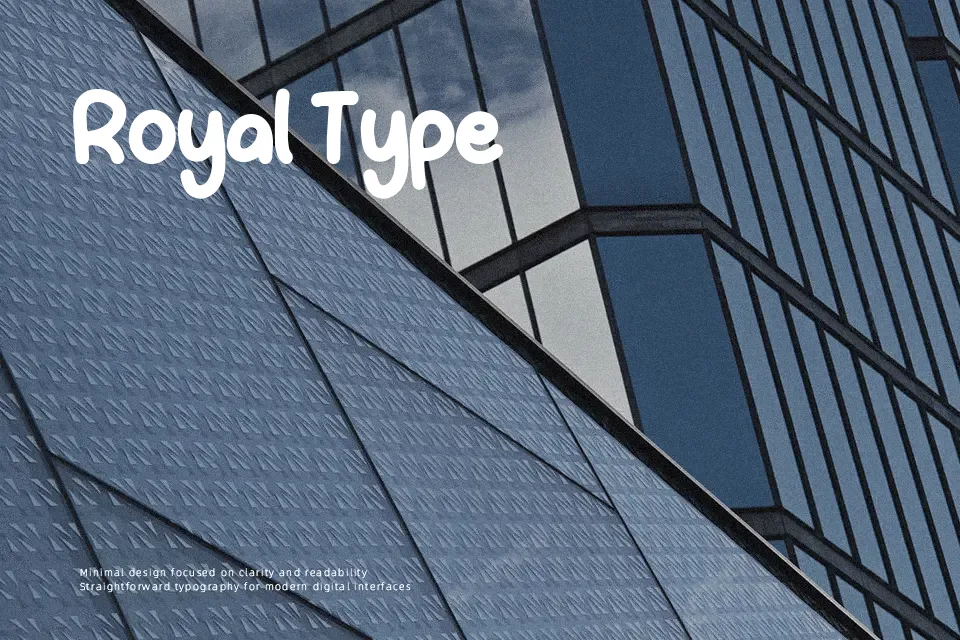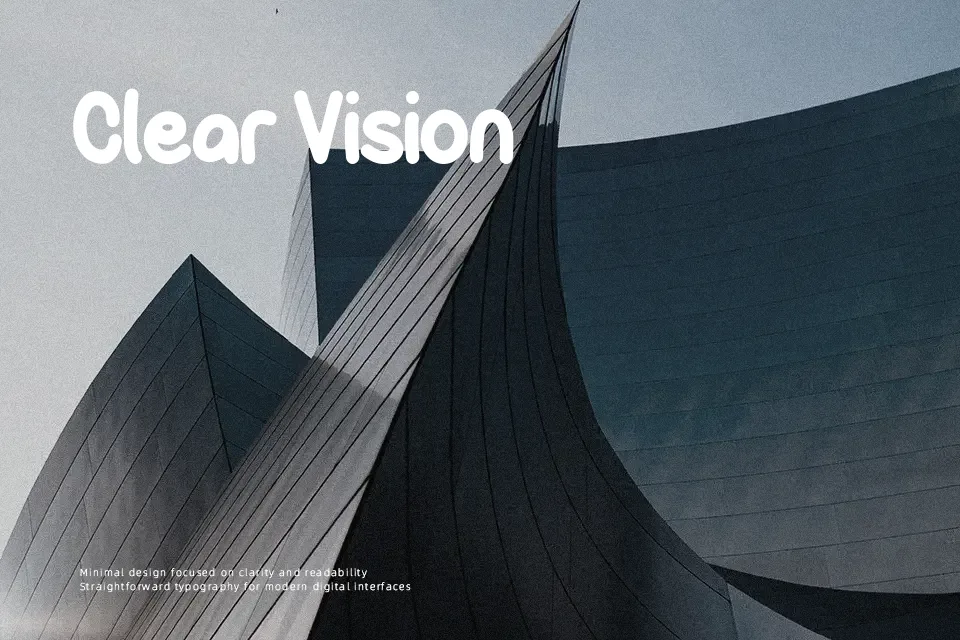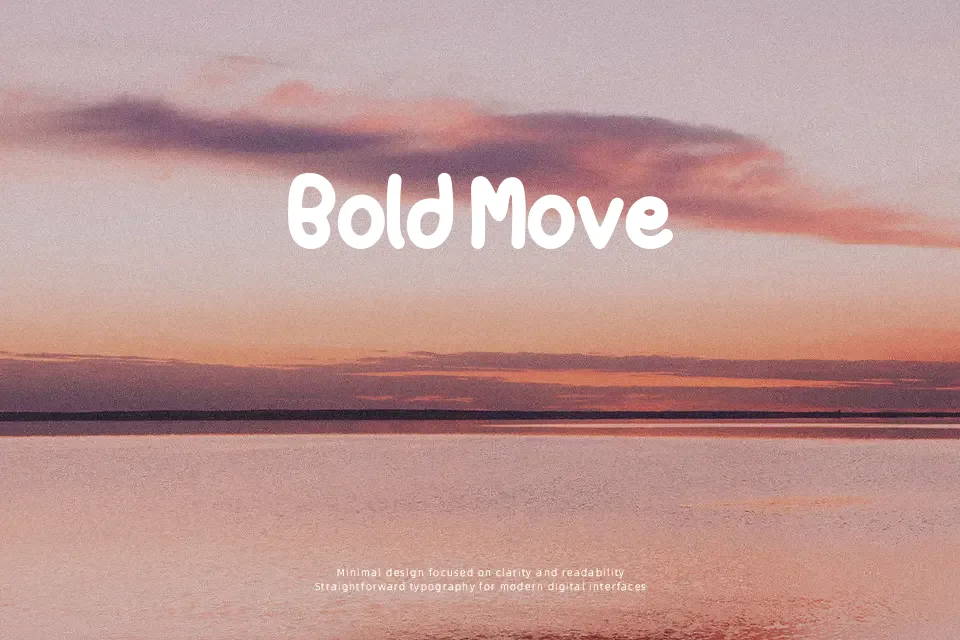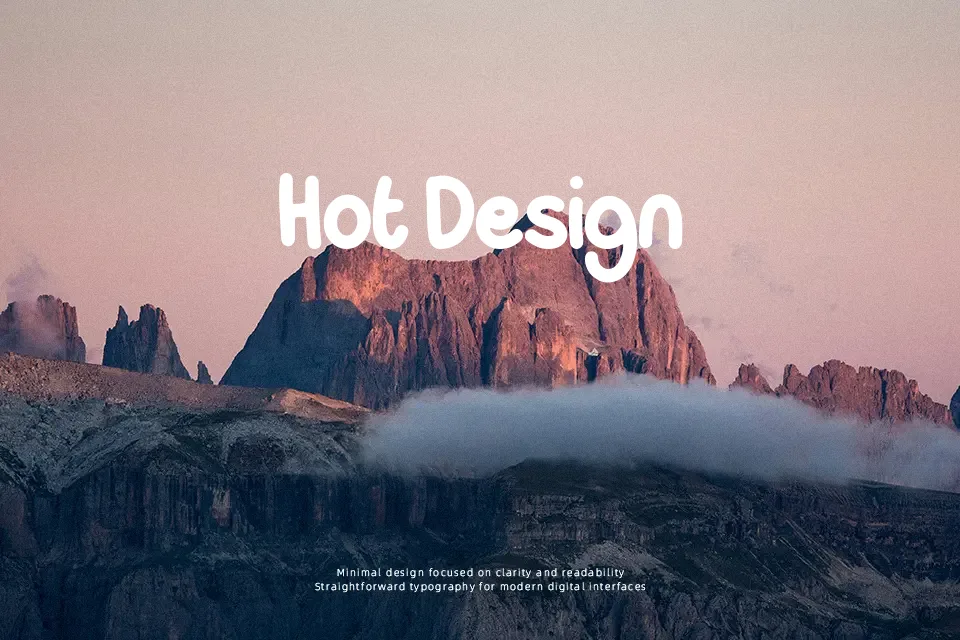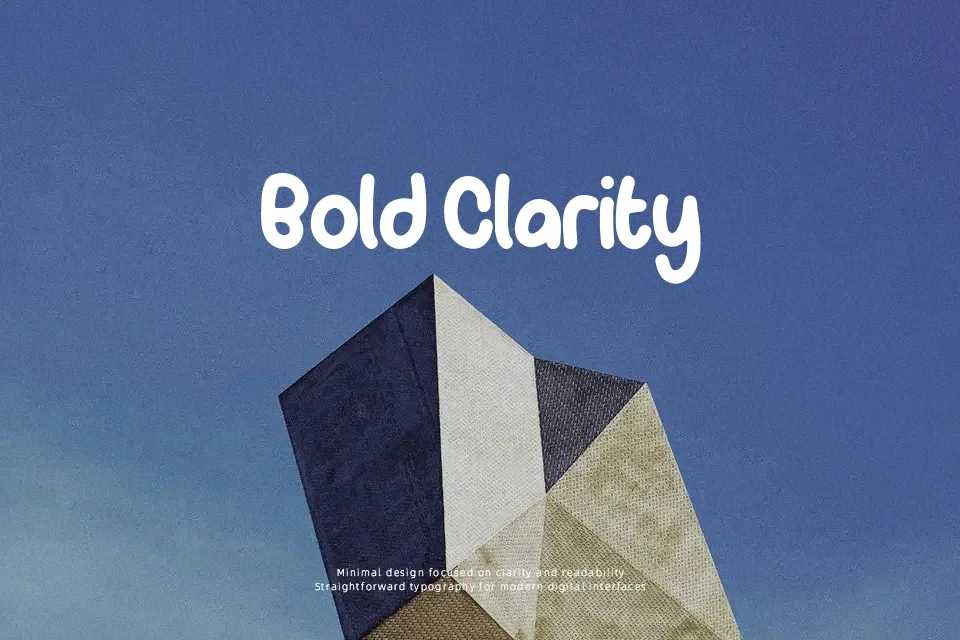
Paper Candy Font
Paper Candy Font uses heavy, rounded forms and uneven, hand-drawn-looking contours to create a soft cartoon display texture. The letters are broad and closely fitted, with thick strokes, simple counters, and lively proportions across the visible uppercase, lowercase, numerals, and punctuation. This makes the typeface easy to notice in short titles, labels, and celebratory graphics. The dense spacing helps it hold together in larger headlines, although small settings can make individual forms feel crowded. It is a practical choice when the wording is brief and the design needs a friendly, playful focal point rather than quiet reading comfort.
Best For: children’s party invitations,sweet packaging labels,birthday poster headlines,social media graphics
Perfect for headline, invitation, and kids, with a bubble and cartoon style.